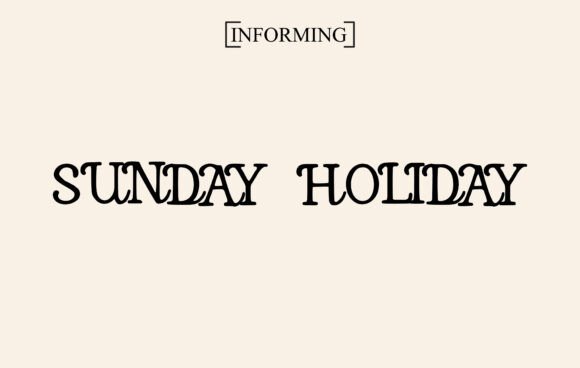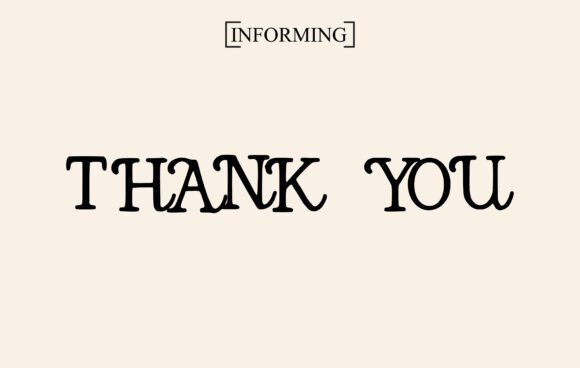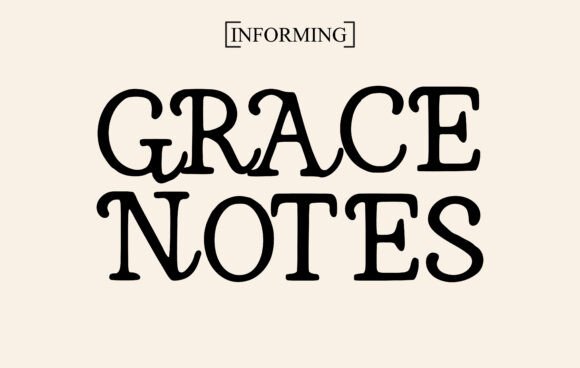
Introducing the Elegant Grace Notes Font: Elevate Your Designs to New Heights
In the world of typography, a font can make or break a design. It’s the foundation upon which your creative ideas are built, and when chosen wisely, it can elevate your project to new heights. This is where the Grace Notes Font comes into play – a beautifully crafted typeface designed to be a true favorite among designers and crafters. With its exceptional legibility and versatility, this font is poised to become an indispensable part of your design toolkit.
A Font of Unparalleled Versatility
The Grace Notes Font is not just another addition to your font library; it’s a game-changer. Its design ensures that it looks great whether you’re using it for title text or body text. This versatility makes it an ideal choice for a wide range of applications. From the headlines of magazine articles to the text on t-shirts, social media posts, branding materials, wedding invitations, and greeting cards, this font adapts seamlessly to any medium.
Designed for Clarity and Impact
One of the standout features of the Grace Notes Font is its legibility. In a world where digital media dominates, ensuring that your message is clear and readable across various platforms is crucial. This font is meticulously designed to ensure that your text is easy to read, making it perfect for both digital and print media. Whether you’re designing for a broad audience or a niche market, the Grace Notes Font ensures that your message is conveyed with clarity and style.
The possibilities with the Grace Notes Font are endless. Here are a few ideas to get you started:
- Magazine Headlines: Create eye-catching titles that draw readers in.
- T-Shirts and Merchandise: Add a professional touch to your apparel designs.
- Social Media Graphics: Stand out on social media platforms with stylish and readable text.
- Branding: Establish a consistent and elegant visual identity for your brand.
- Wedding Invitations and Cards: Add a touch of elegance and sophistication to your stationery designs.
Why Choose the Grace Notes Font?
With so many fonts available, why choose the Grace Notes Font? The answer lies in its unique blend of style, versatility, and legibility. This font is not just a tool; it’s a partner in your creative process. It’s designed to inspire and to help you bring your ideas to life in the most impactful way possible.
Tips for Using the Grace Notes Font
To make the most out of the Grace Notes Font, consider the following tips:
- Experiment with Sizes: While it’s legible at small sizes, don’t be afraid to go big for maximum impact.
- Play with Colors: The font’s design allows it to work well with a variety of colors and textures.
- Mix and Match: Combine the Grace Notes Font with other fonts for a unique look.
The Grace Notes Font is more than just a typeface; it’s a key to unlocking your creative potential. Its elegance, versatility, and legibility make it an invaluable asset for designers and crafters looking to elevate their projects. Whether you’re working on a commercial project or a personal craft, this font has the potential to take your creative ideas to the highest level. So why wait? Explore the possibilities with the Grace Notes Font today and discover a world of creative opportunities at your fingertips.